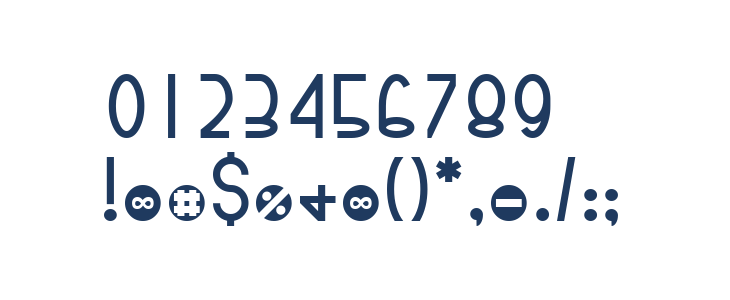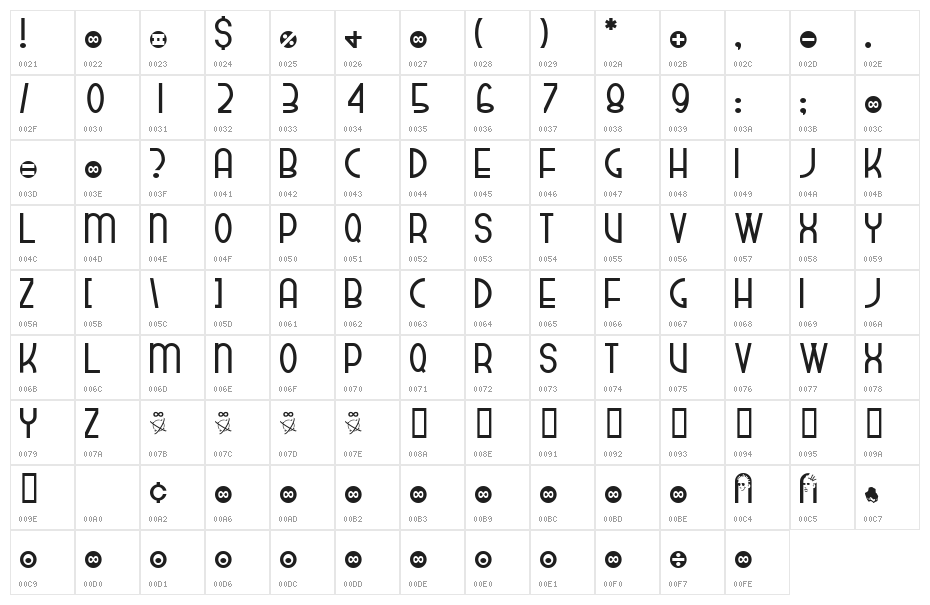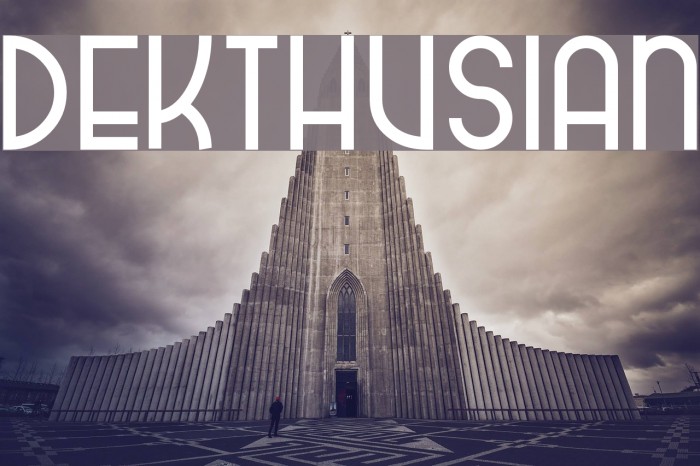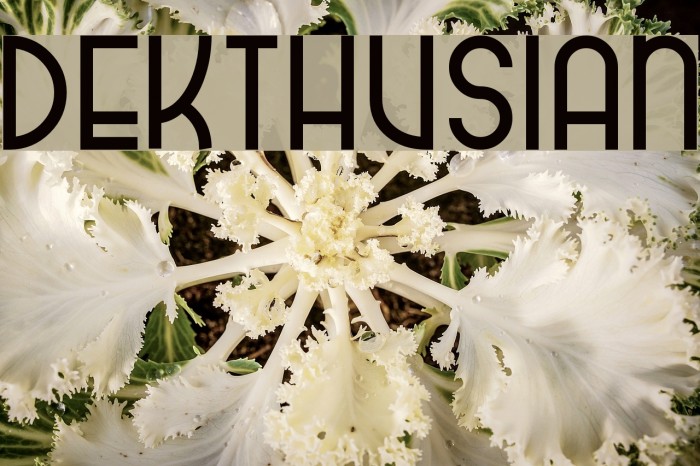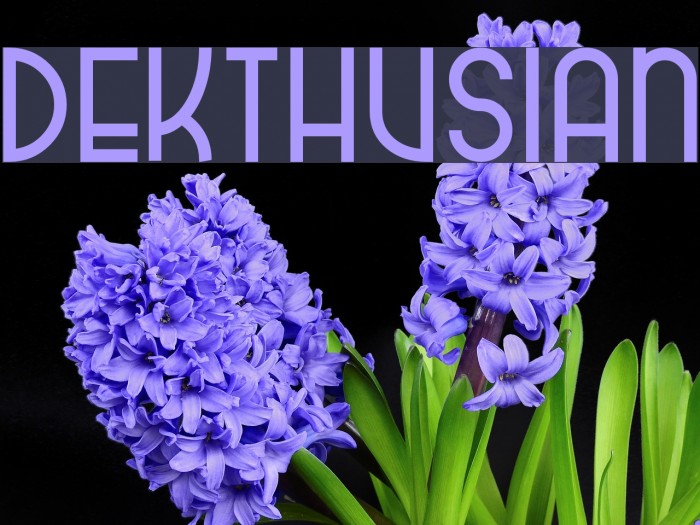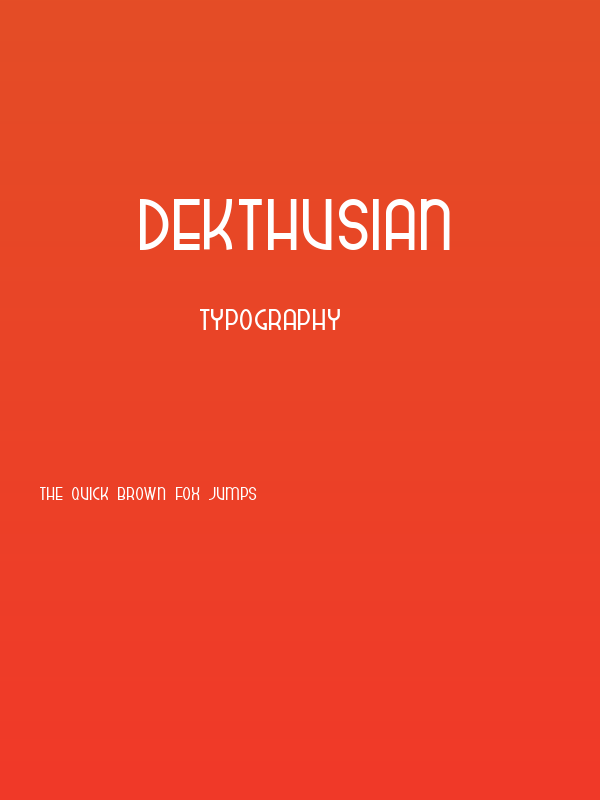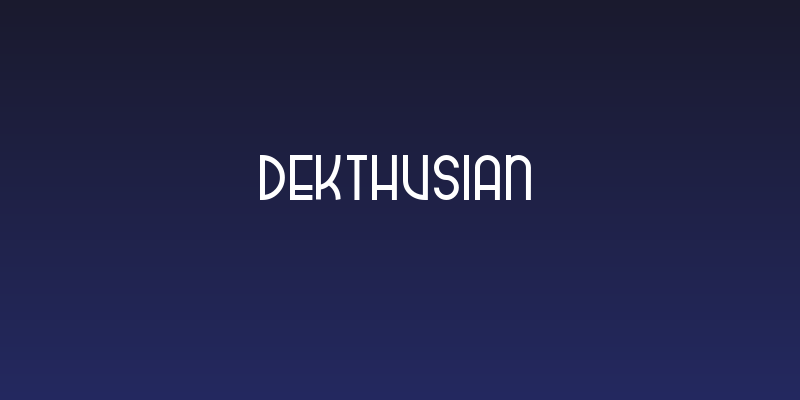
dekthusian Font
dekthusian Description
This font features a modern and geometric design with clean, rounded edges and a uniform stroke width. The uppercase and lowercase letters maintain a consistent style, with a focus on simplicity and readability. The numbers are bold and clear, matching the overall aesthetic of the alphabet. Special characters are distinct and well-integrated, making them suitable for various applications. The font's design is versatile, offering a contemporary look that can be used in both digital and print media.
| Proposed Projects | Ideal for branding, advertising, digital interfaces, and editorial design. |